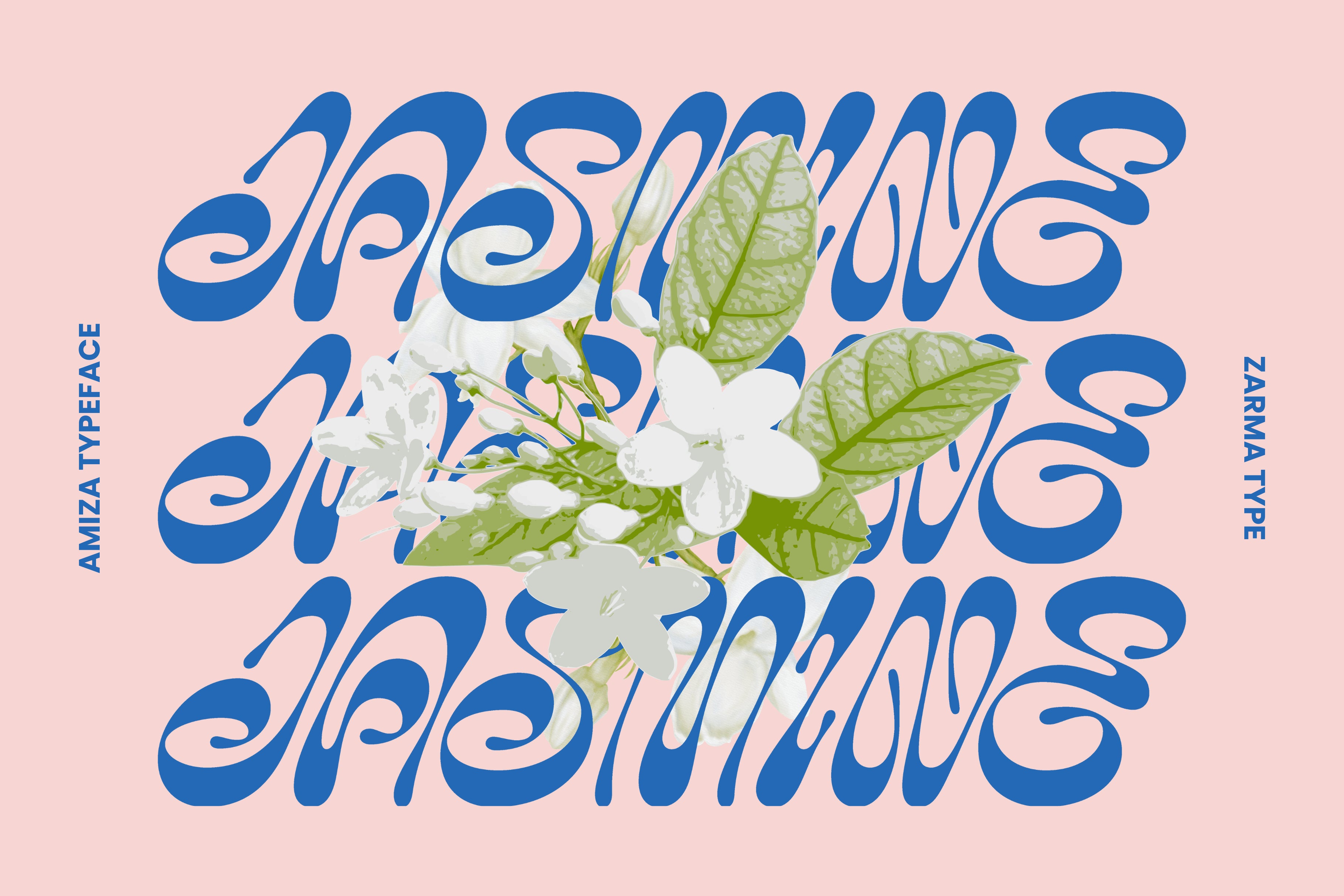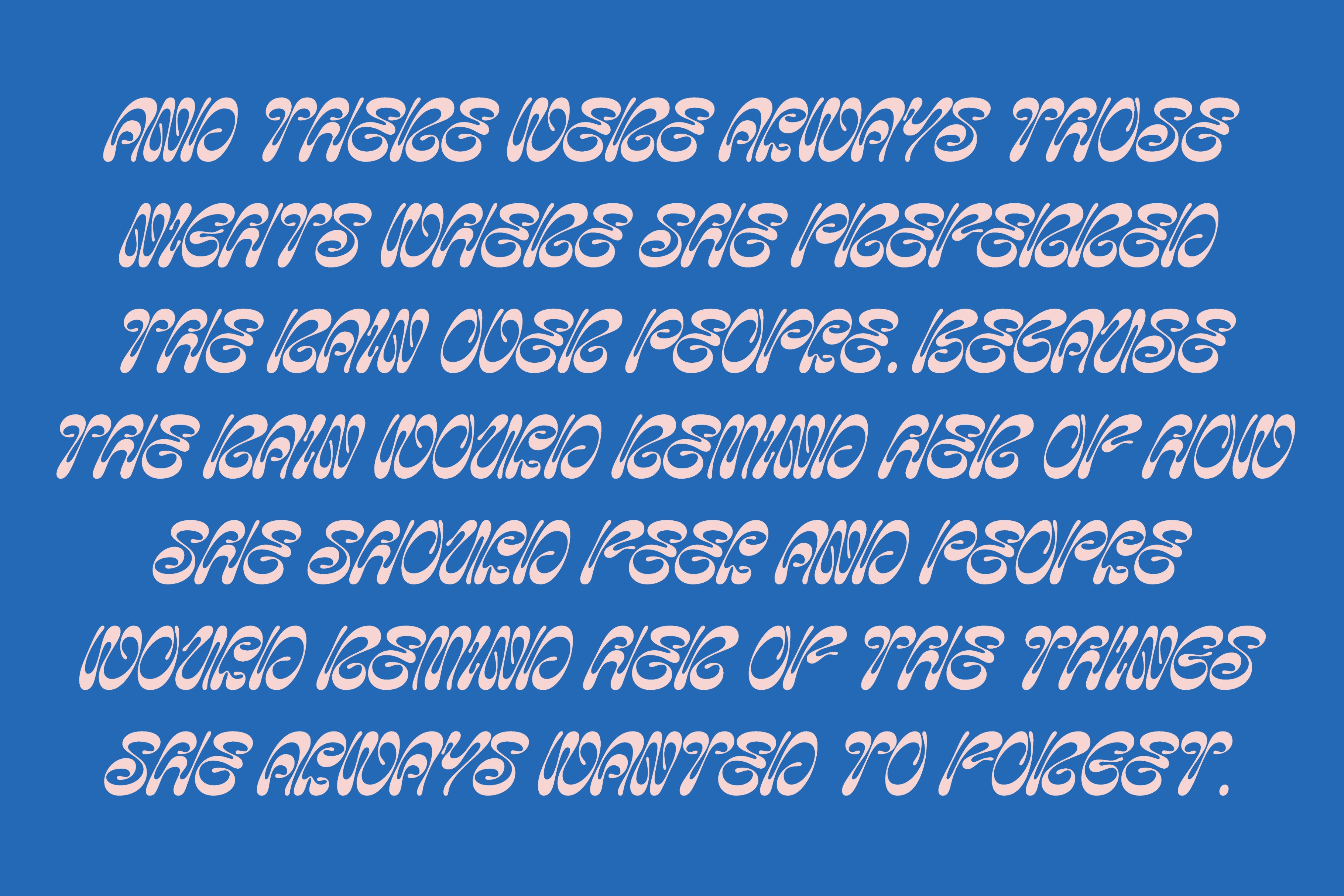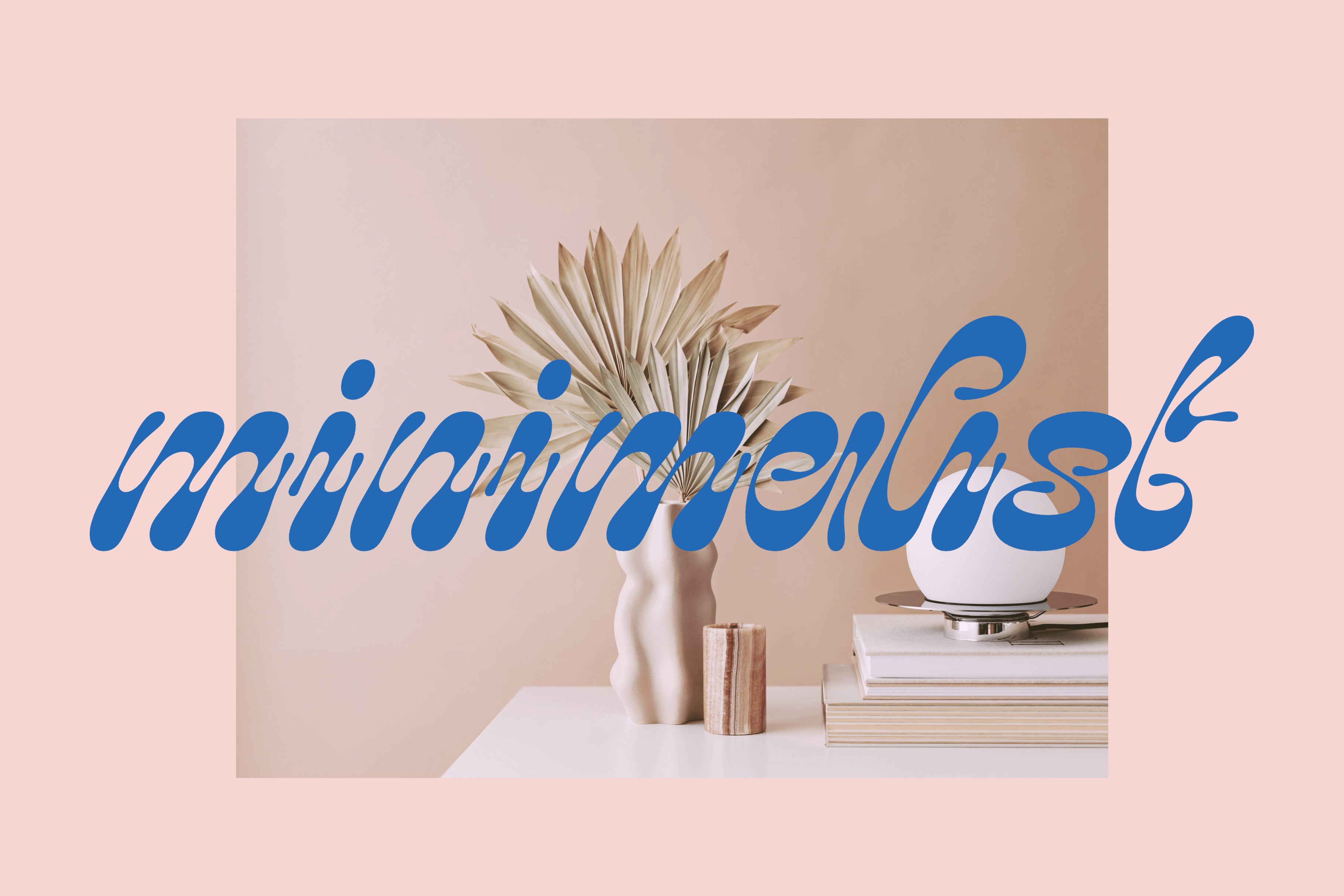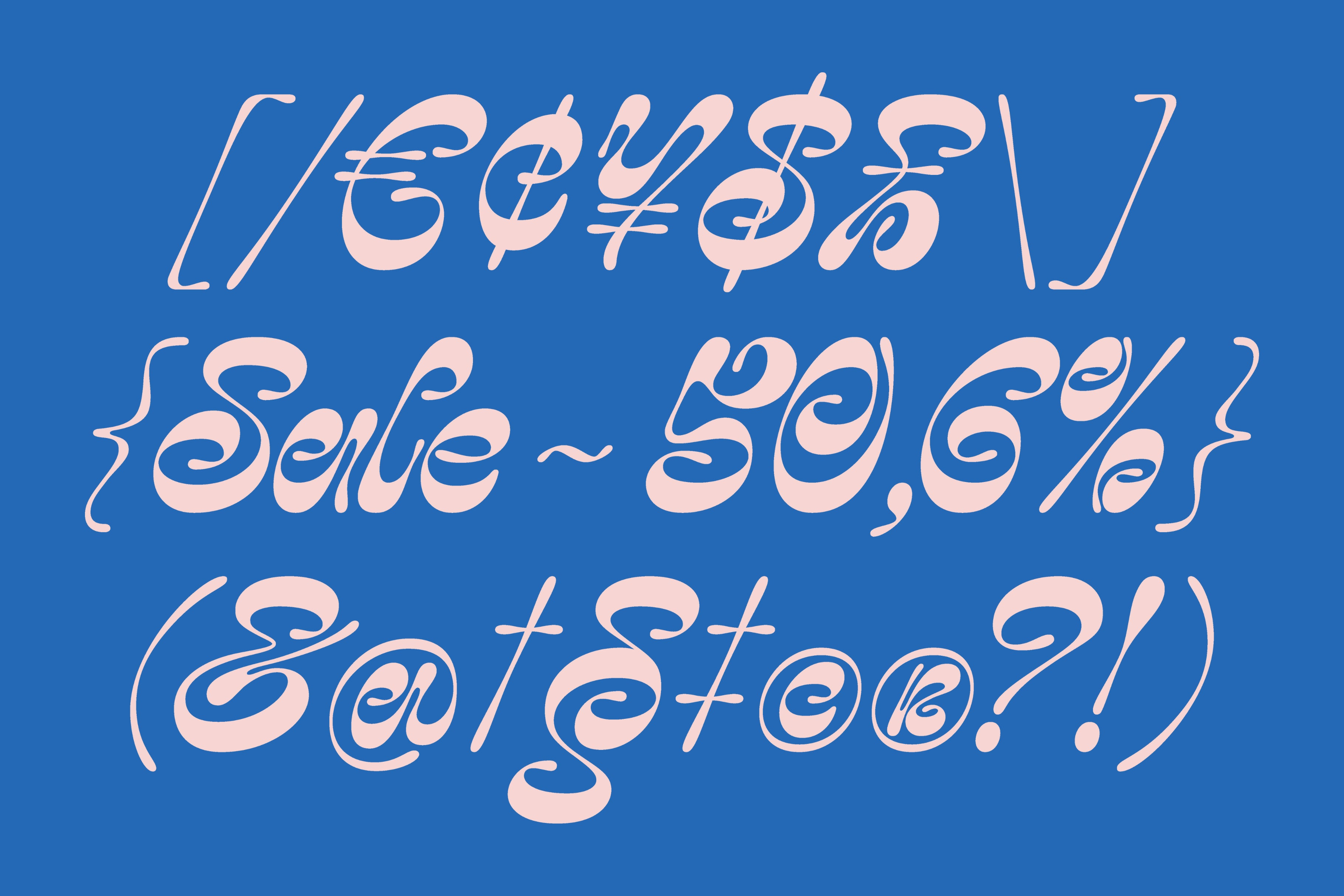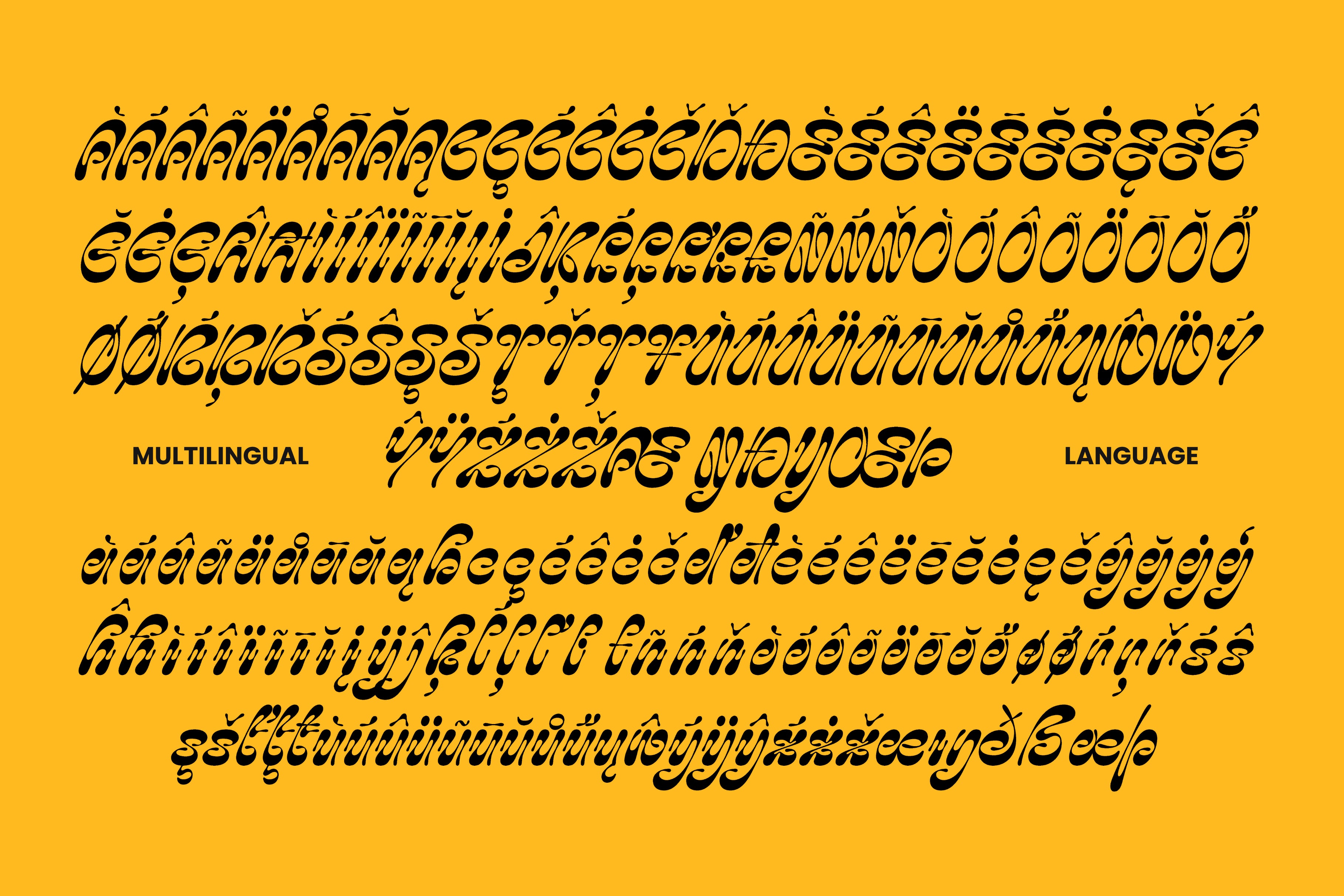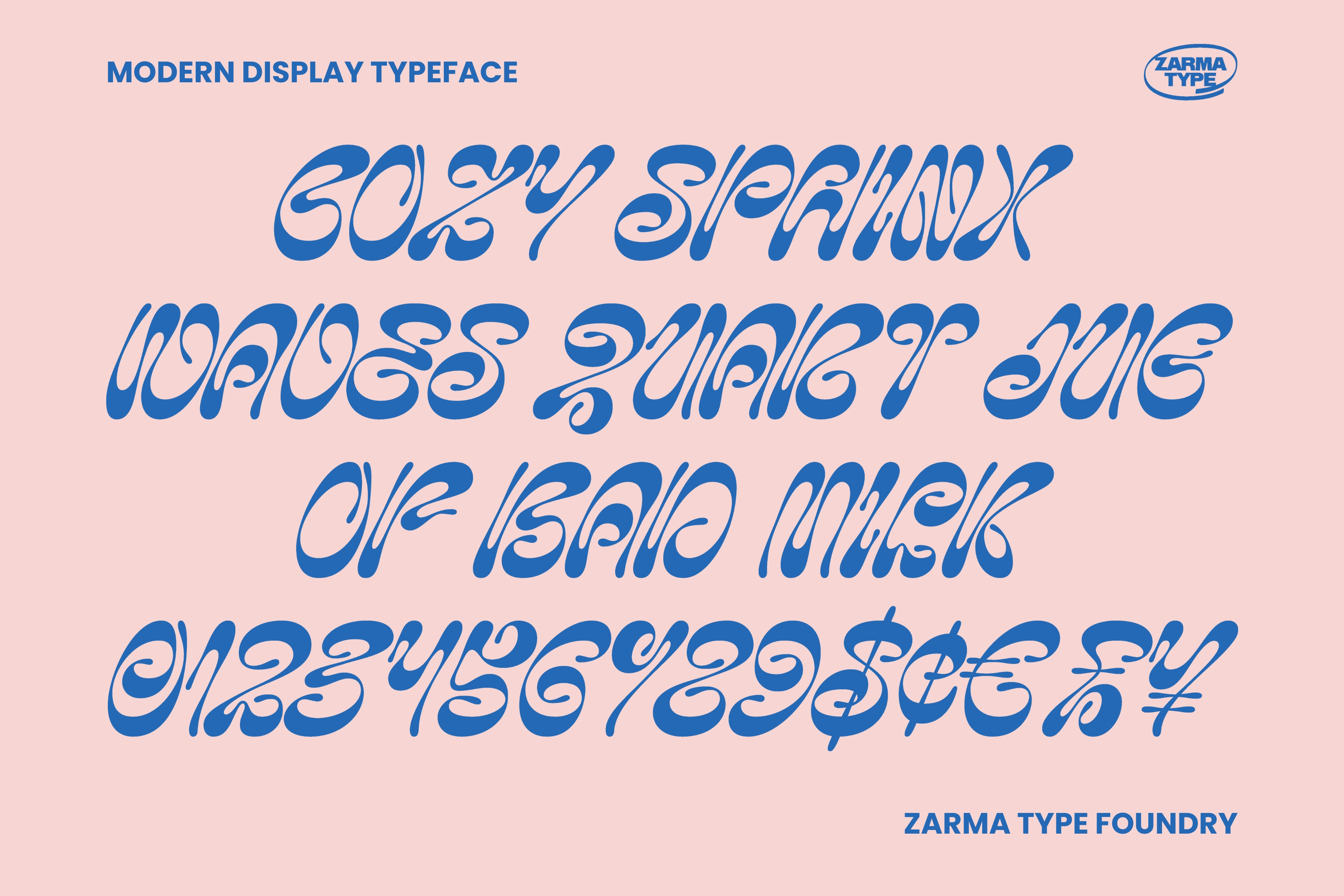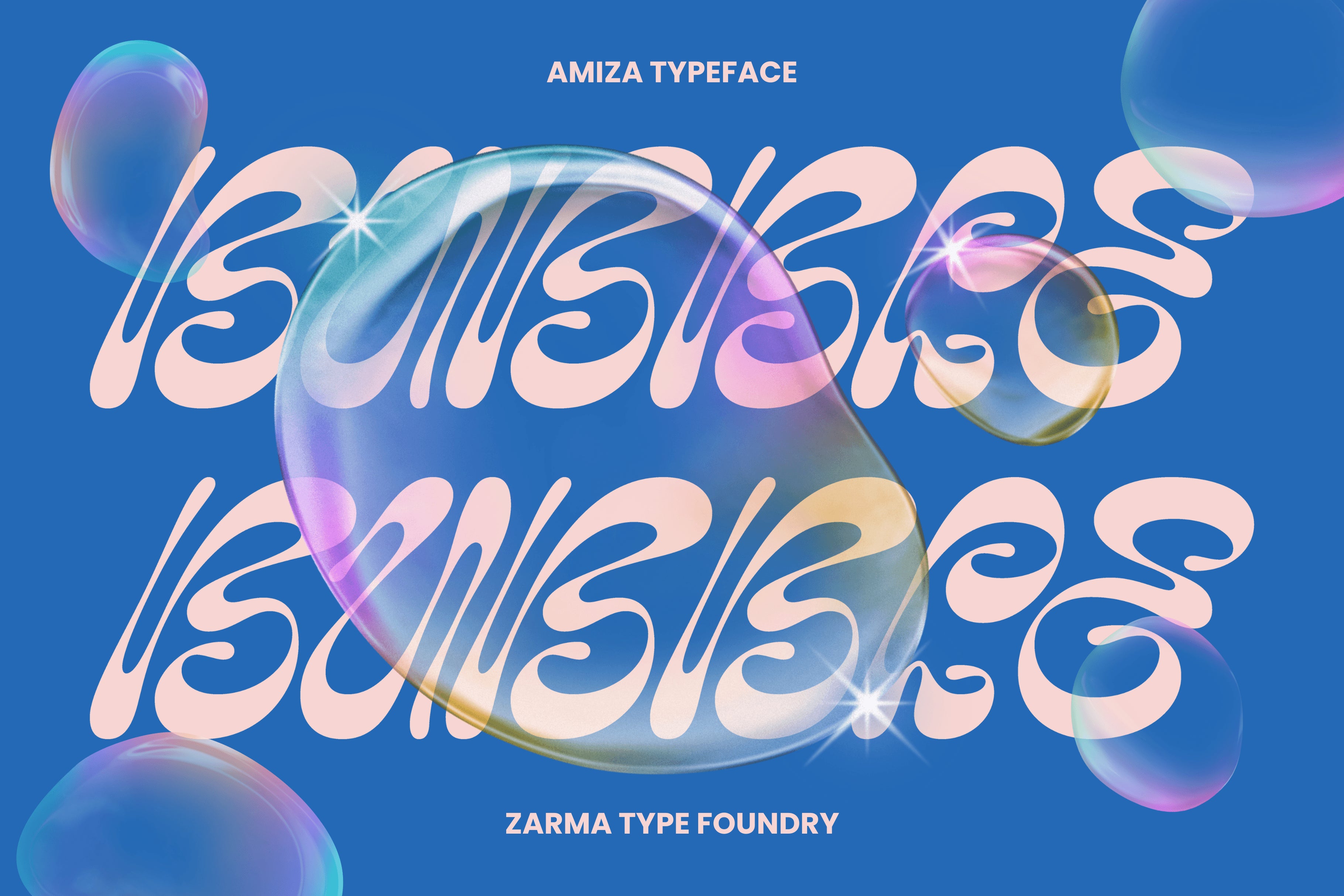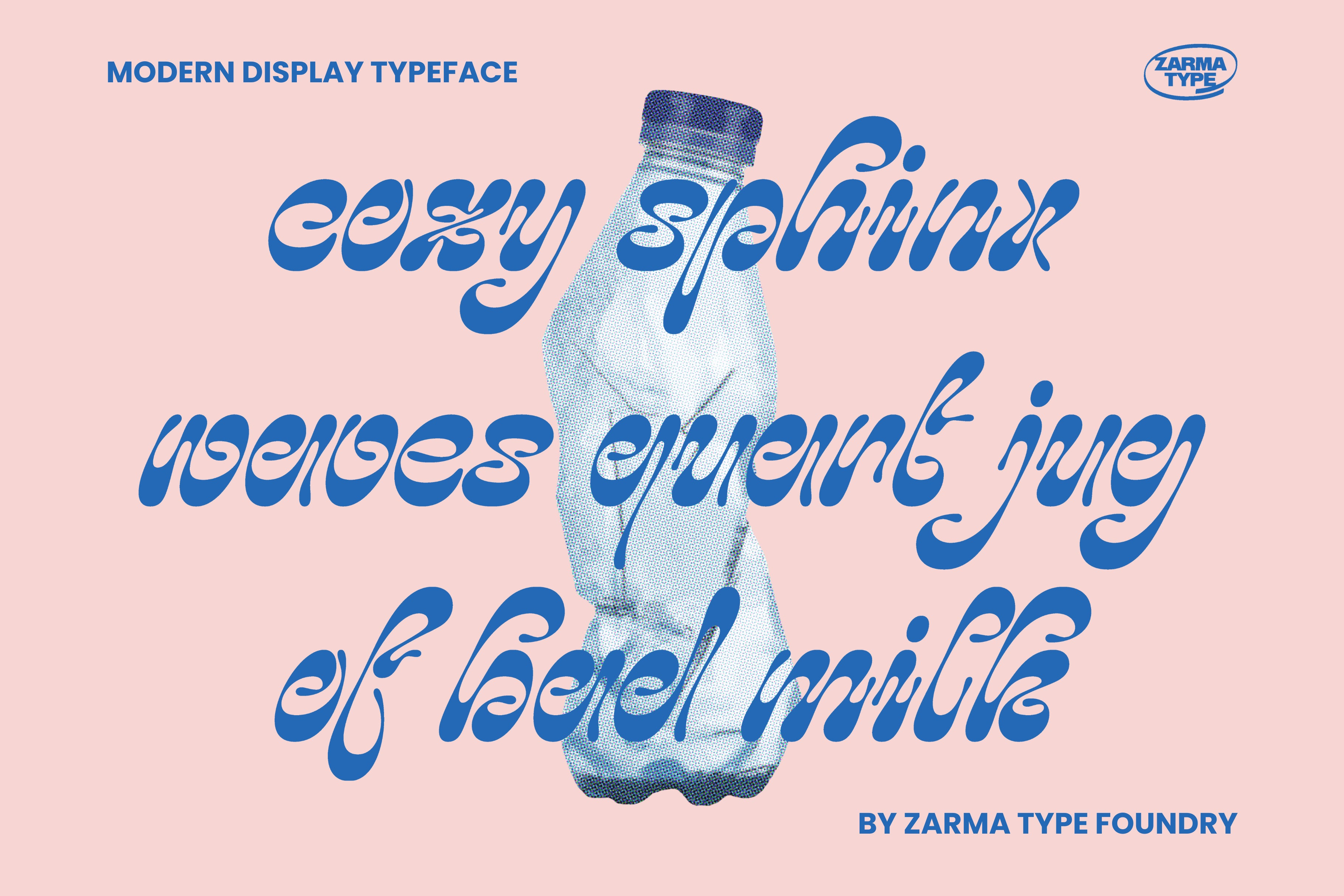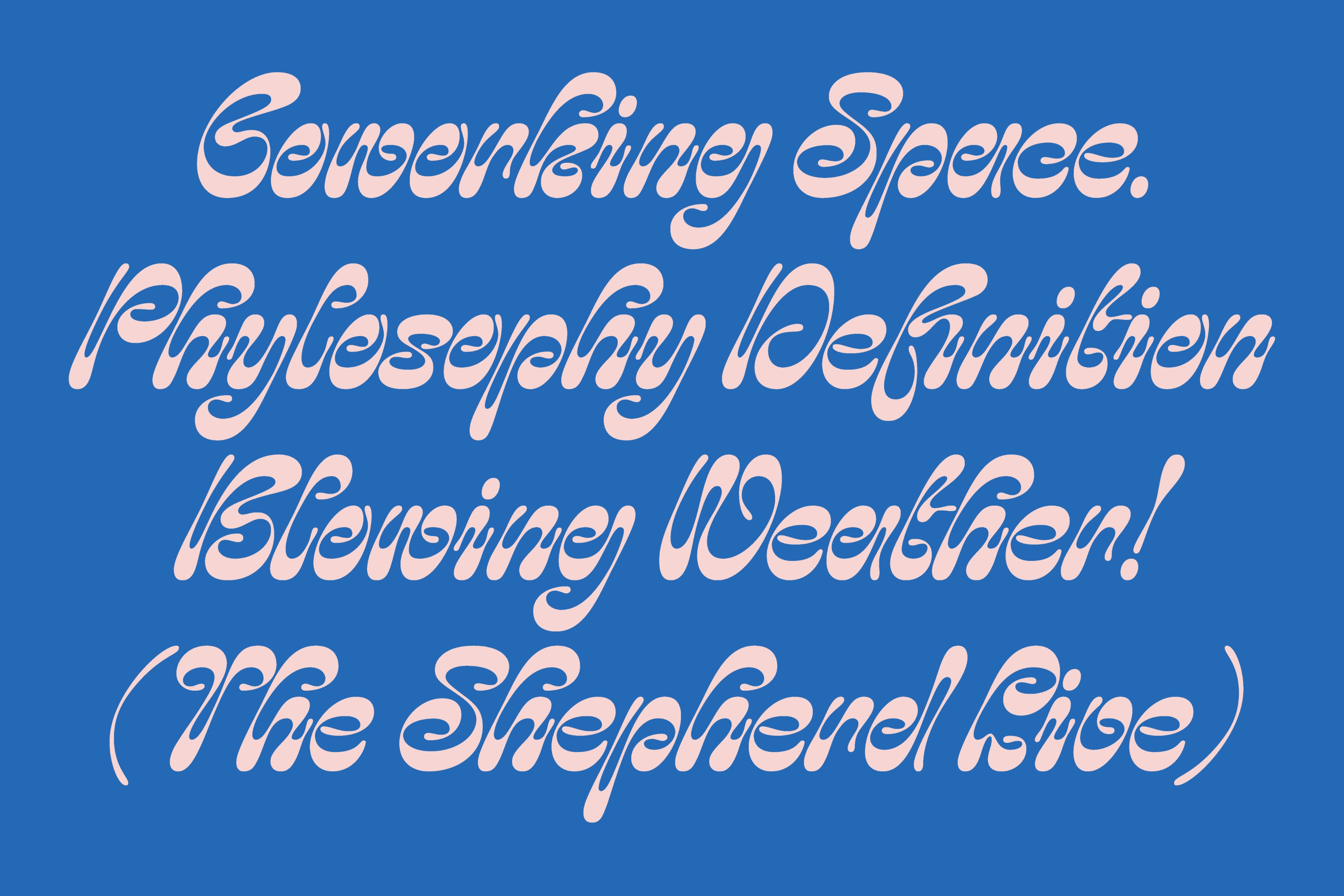
Amiza Font
Amiza is an experimental display typeface inspired by psychedelic forms and expressive typography. Blending flowing curves with bold character, it transforms every word into a striking visual statement that feels both nostalgic and refreshingly modern. Perfect for branding, editorials, posters, logos, packaging, and eye-catching headlines, Amiza is designed for creatives who love to stand out.
The font includes uppercase and lowercase characters, numbers, punctuation, ligatures, OpenType features, PUA encoding, Extended Latin, and multilingual support, giving you the flexibility to create distinctive designs with confidence across a wide range of languages and creative projects.
Amiza Font is an experimental display typeface featuring flowing curves and bold characters, designed with uppercase and lowercase letters, numbers, punctuation, ligatures, OpenType features, PUA encoding, Extended Latin, and multilingual support. This versatile font offers a unique visual style suitable for a variety of creative projects.